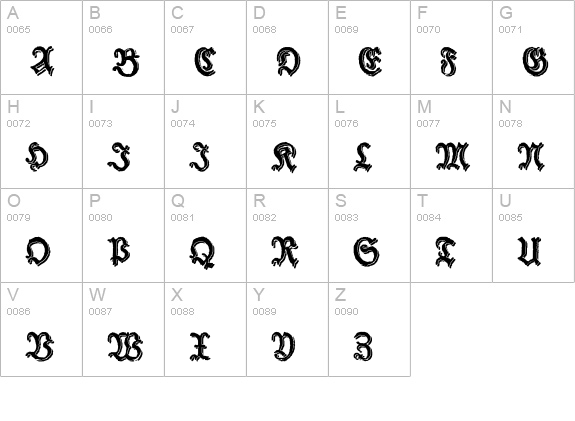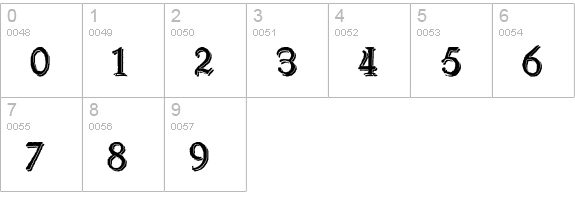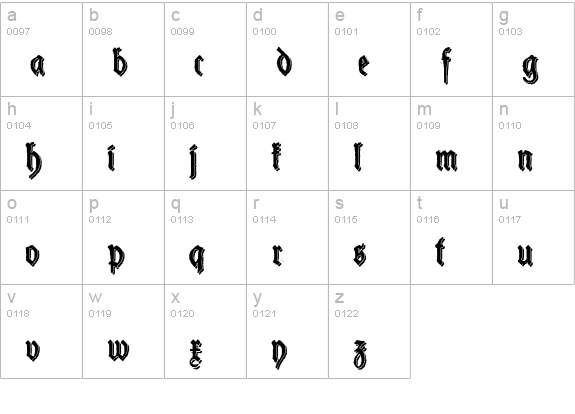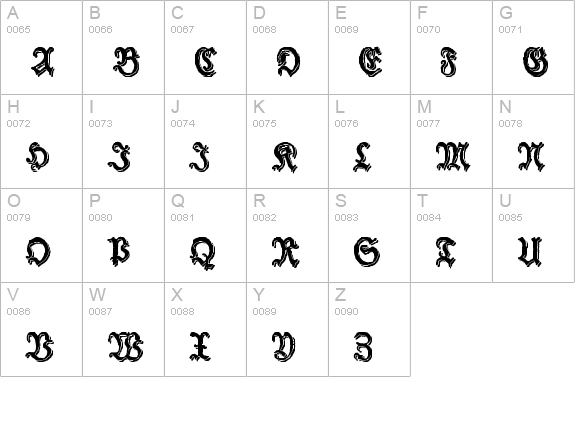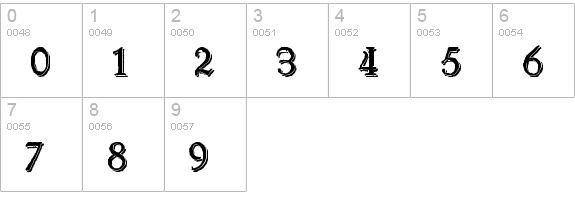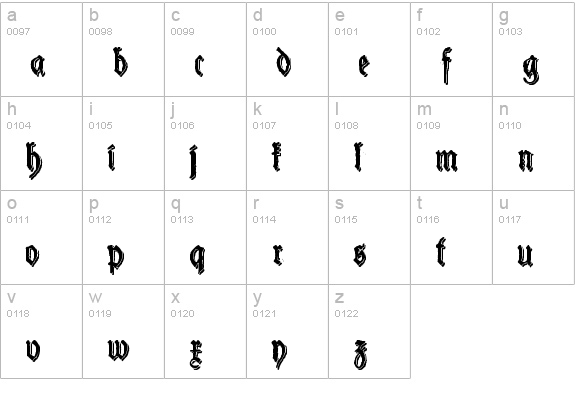
Schneider Buch Deutsch Shadow Two Font Details
Schneider Buch Deutsch Shadow Two font is a stunning and versatile typeface that combines elegance with a touch of mystery. With its unique shadow effect, this font adds depth and dimension to any design project. Designed with meticulous attention to detail, Schneider Buch Deutsch Shadow Two font is perfect for creating eye-catching headlines, logos, and signage. Its bold and captivating style commands attention and ensures that your message stands out from the crowd. This font is not only visually stunning but also incredibly easy to read. Its well-defined strokes and clear letterforms make it perfect for both print and digital applications. Whether it's a book cover, a website header, or a promotional poster, Schneider Buch Deutsch Shadow Two font will captivate your audience with its distinctive and stylish appearance. One of the best features of Schneider Buch Deutsch Shadow Two font is that it is freely available to download at FontsMarket.com. You can easily access this font and use it in your personal and commercial projects without any restrictions. This means that you have the opportunity to unleash your creativity and make your designs truly unique and impactful. So, if you're looking for a font that combines elegance, versatility, and a touch of mystery, look no further than Schneider Buch Deutsch Shadow Two font. Download it for free at FontsMarket.com and elevate your design projects to new heights.